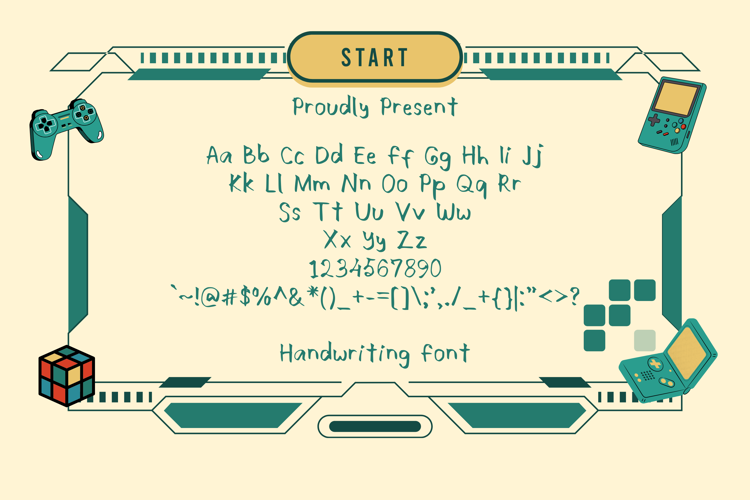
Want Woo Font
Want woo font is a simple but cool looking regular handwriting font. Want woo font can be applied in your design or you can make it into writing for your diary.